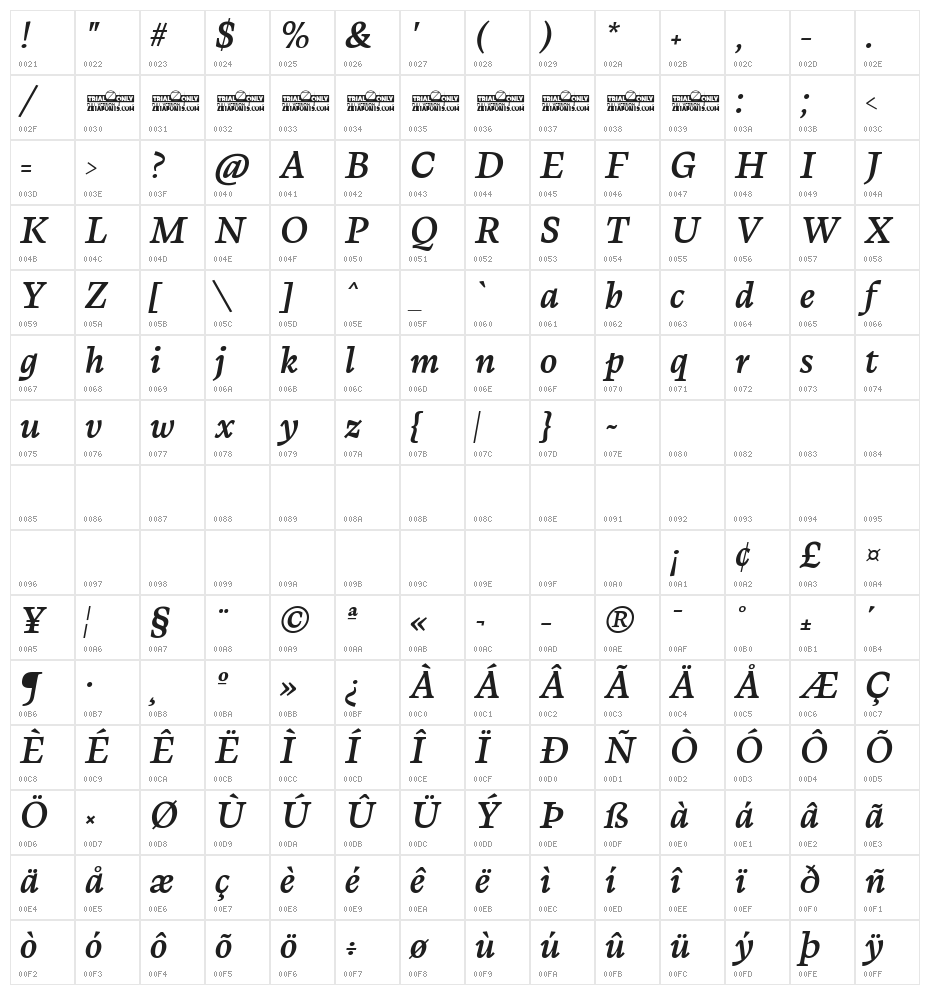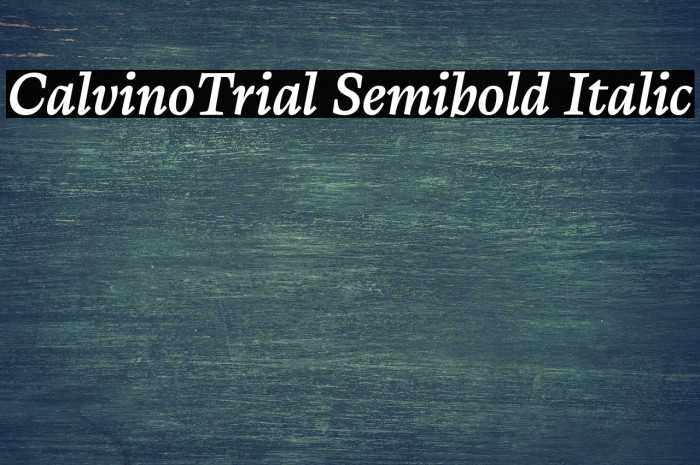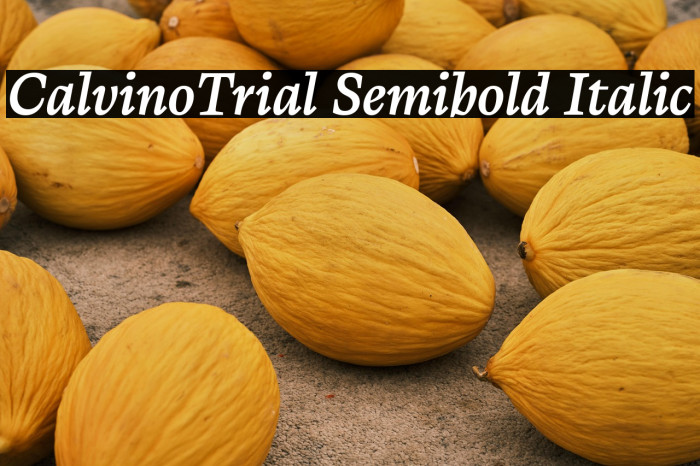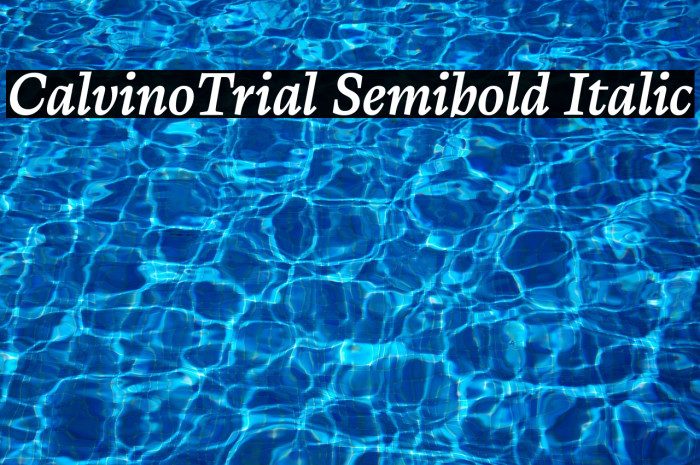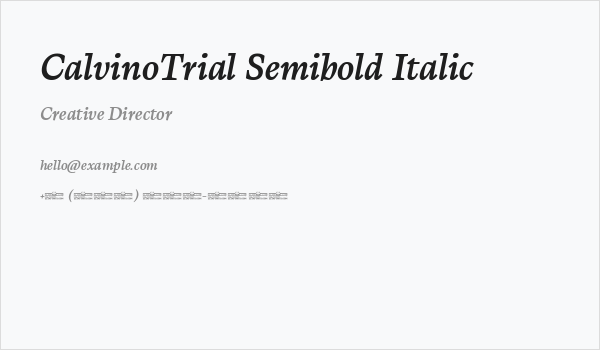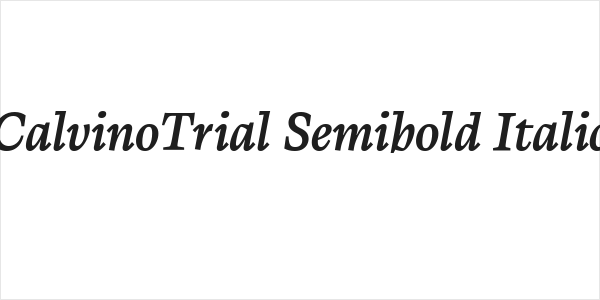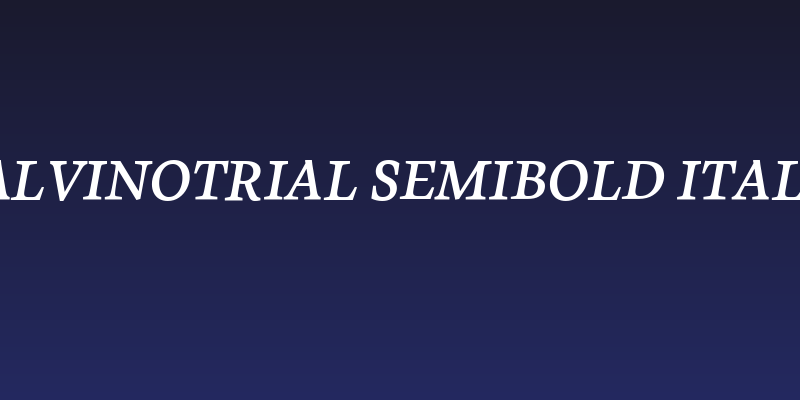
CalvinoTrial Semibold Italic Font
CalvinoTrial Semibold Italic Description
This font features a sophisticated and elegant design, characterized by its semi-bold weight and italic style. The uppercase letters exhibit a refined slant, adding a dynamic and fluid appearance. The lowercase letters maintain a consistent style, with smooth curves and a slight inclination that enhances readability. The numerals are well-proportioned, complementing the overall aesthetic. Special characters are thoughtfully designed, maintaining the font's cohesive look. The font's semi-bold weight provides a strong presence, making it suitable for various design applications.